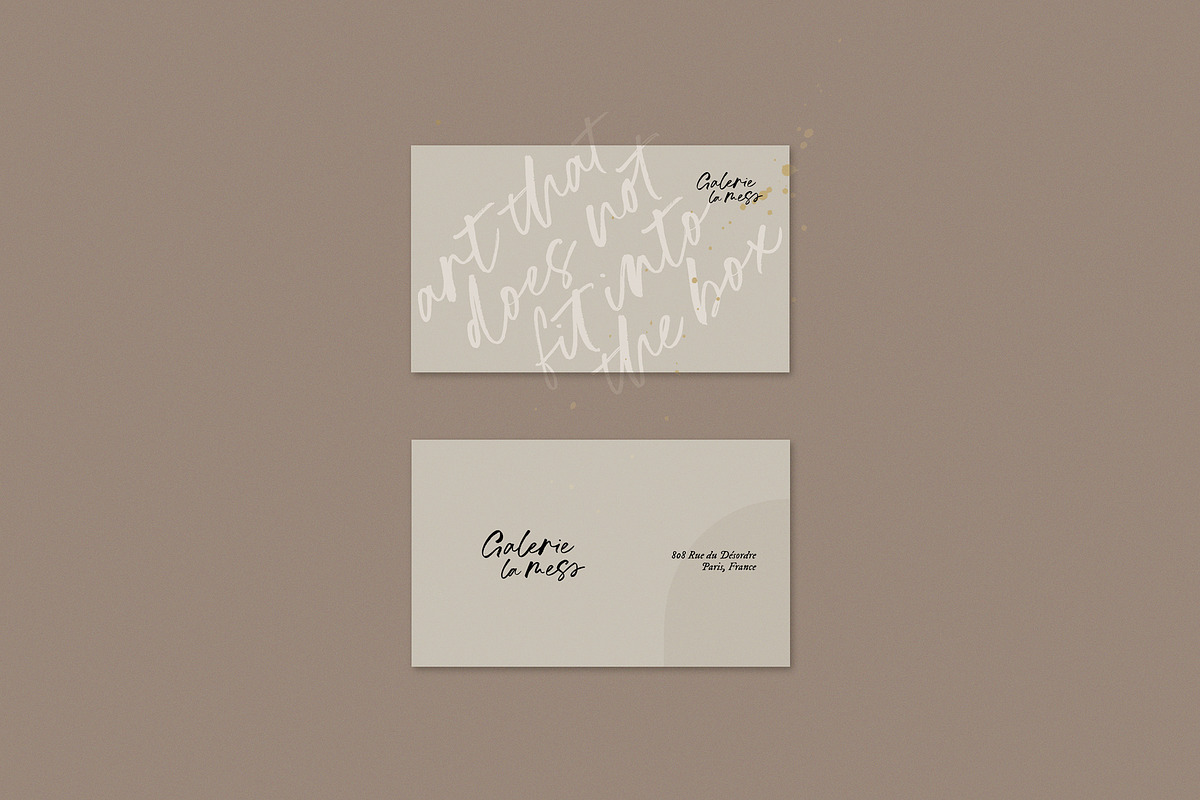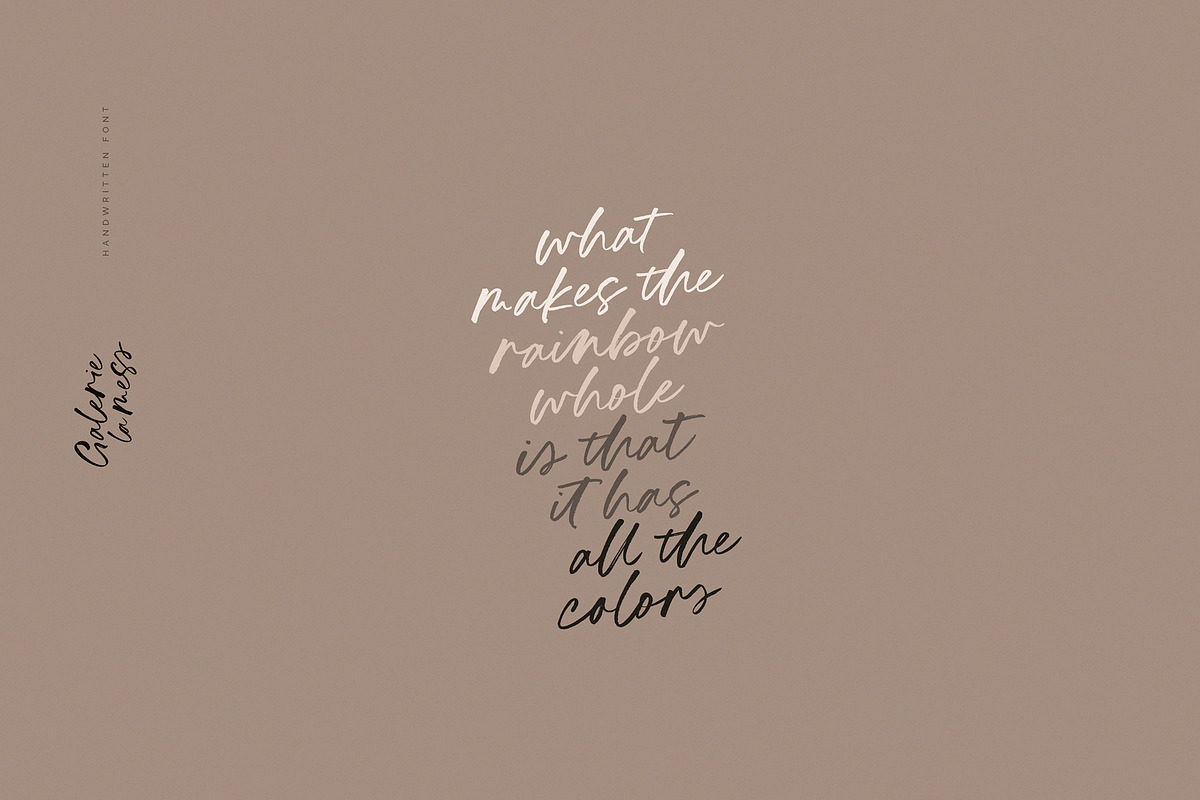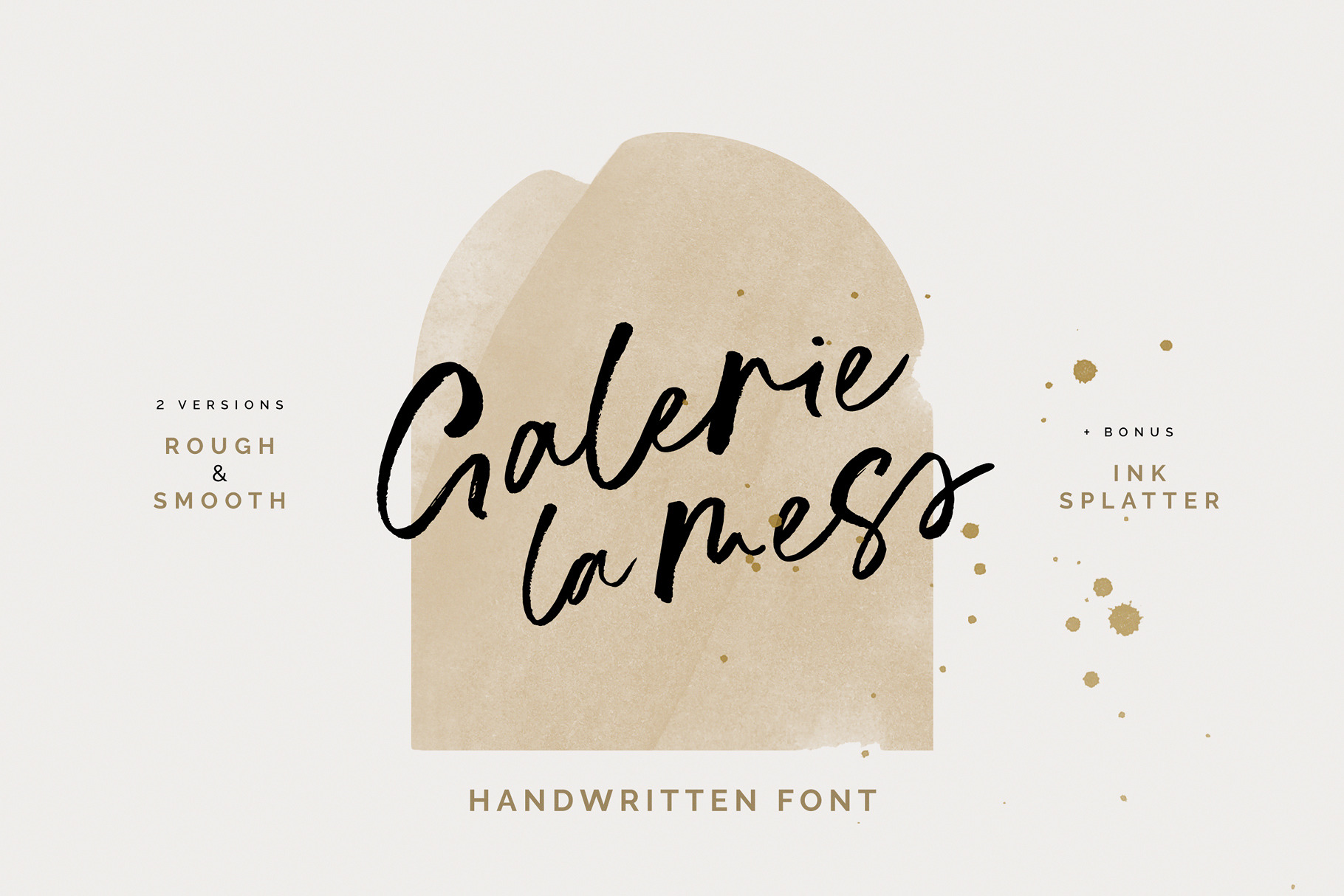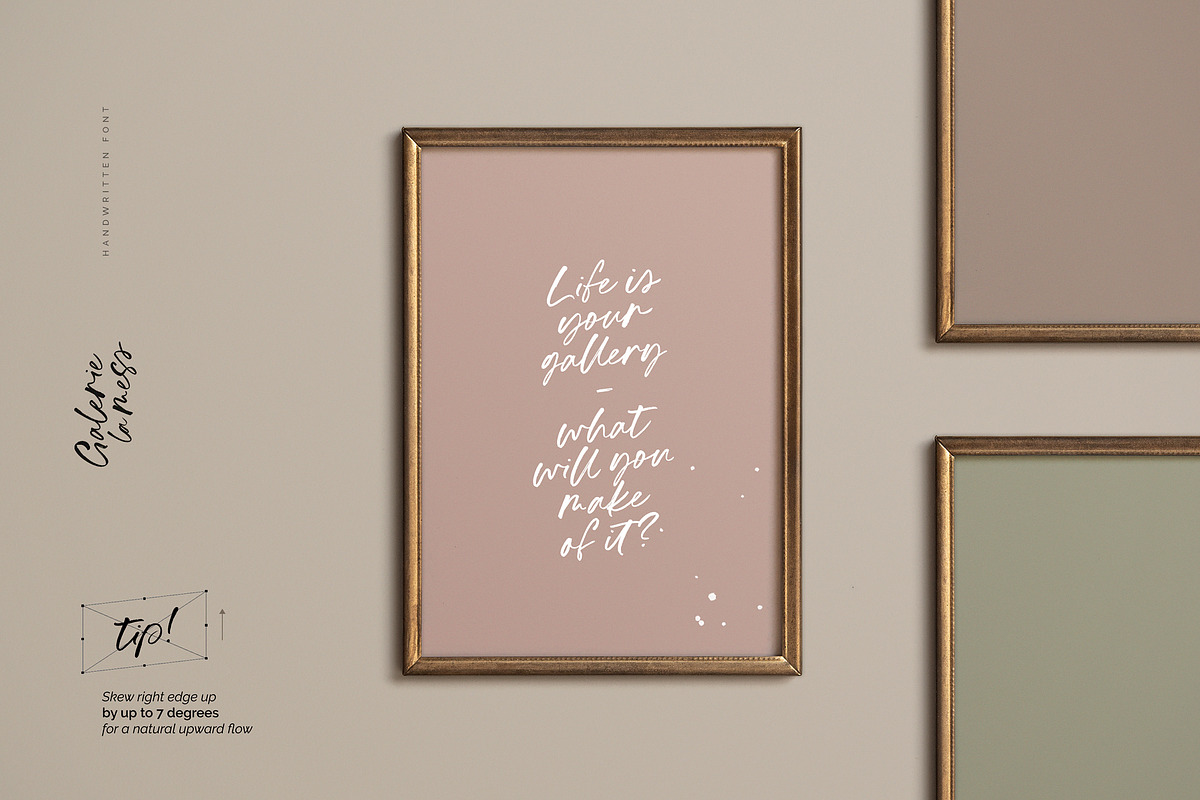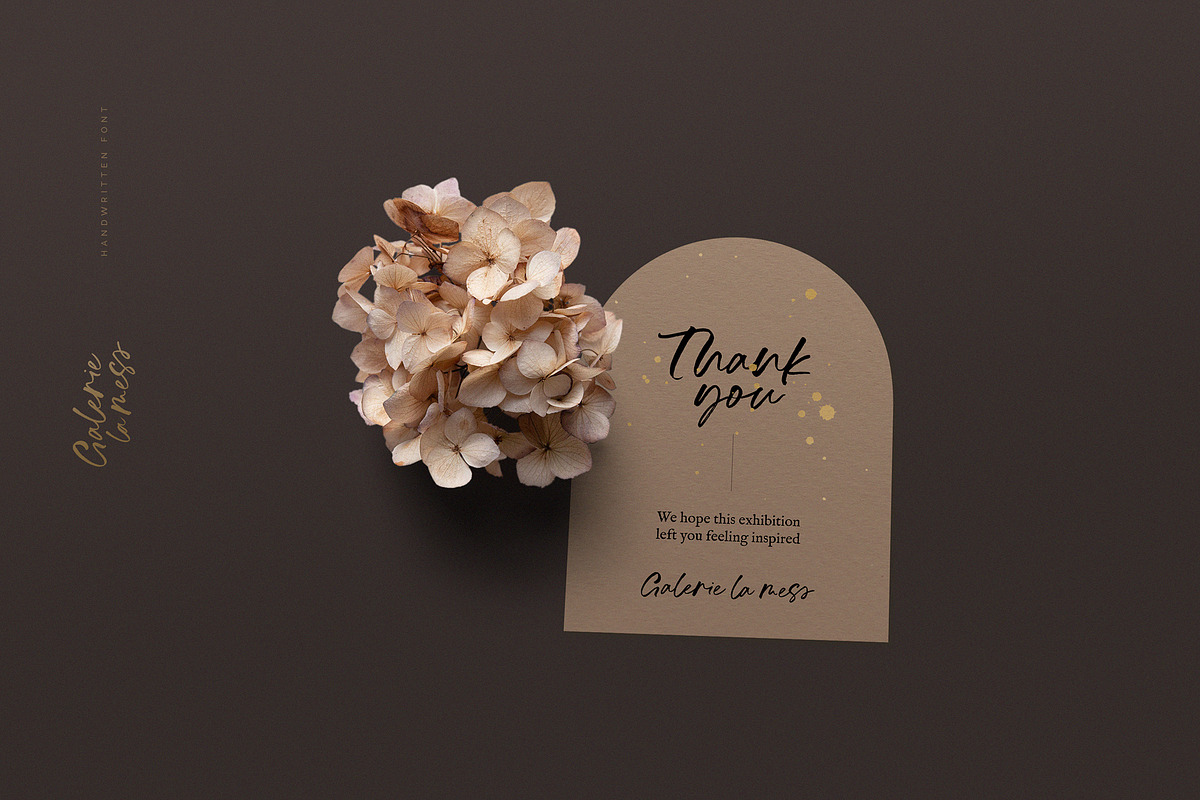
Galerie La Mess | handwritten font
Welcome to Galerie La Mess! This font takes me back to why I personally fell in love with handlettering - messy and bold handwritten quotes that transform words of inspiration into beautiful visual pieces. In addition to quotes and prints, Galerie La Mess would be ideal for logos and headings, and wherever big & bold lettering is needed!
For authentic handwritten variation, Galerie La Mess comes with a full set of lowercase alternates and 36 ligatures. If you use software that supports OpenType, all of this is included in the main font. If not, you will be able to access the alternates and ligatures with the provided Alt & Liga fonts.
The Regular version of Galerie La Mess has rough edges and slight texture, but for situations that call for clean lines, a Smooth version is also provided.
As a bonus to add that bit of extra to your design, you'll also receive a pack of
- 24 ink splatters